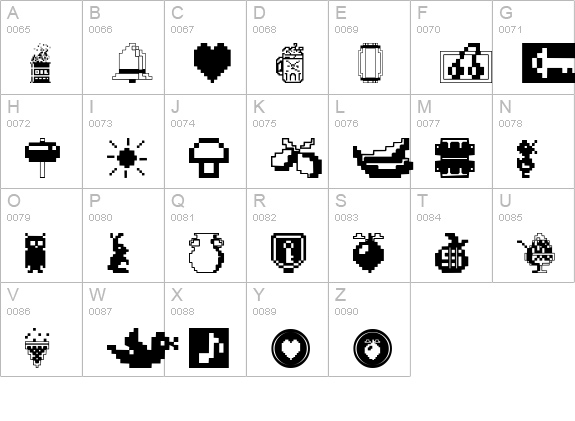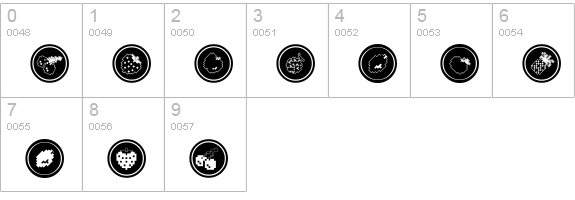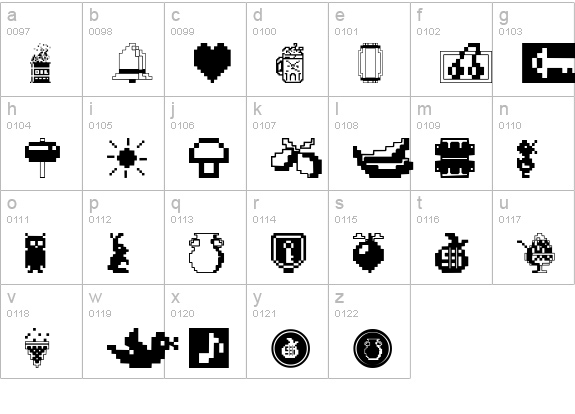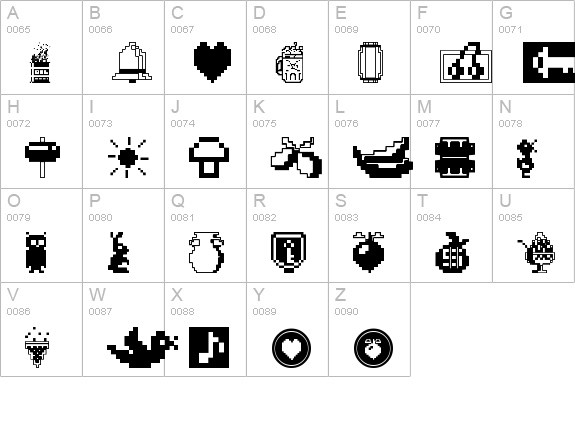
Fontalicious Thingbats Font Details
Introducing the Fontalicious Thingbats font, a whimsical and versatile typeface that will add a touch of playfulness to your design projects. This unique font features a collection of charming and quirky symbols, perfect for adding a creative flair to your work. The Fontalicious Thingbats font is not only visually appealing but also incredibly easy to use, making it suitable for a wide range of design applications. Whether you're creating greeting cards, posters, or social media graphics, this font is sure to make your designs stand out. Best of all, the Fontalicious Thingbats font is available for free download at FontsMarket.com. So go ahead and unleash your creativity with this delightful font that is as fun to use as it is eye-catching. Elevate your design projects with Fontalicious Thingbats today!